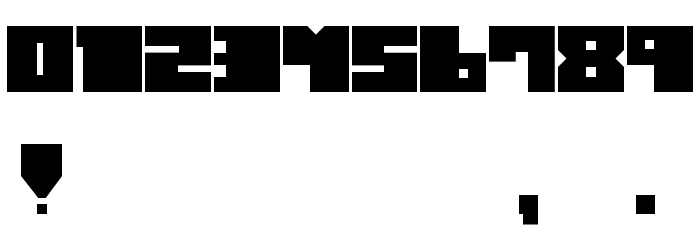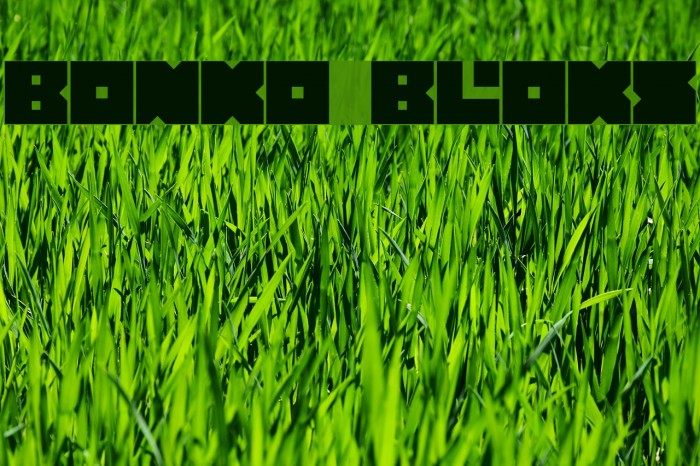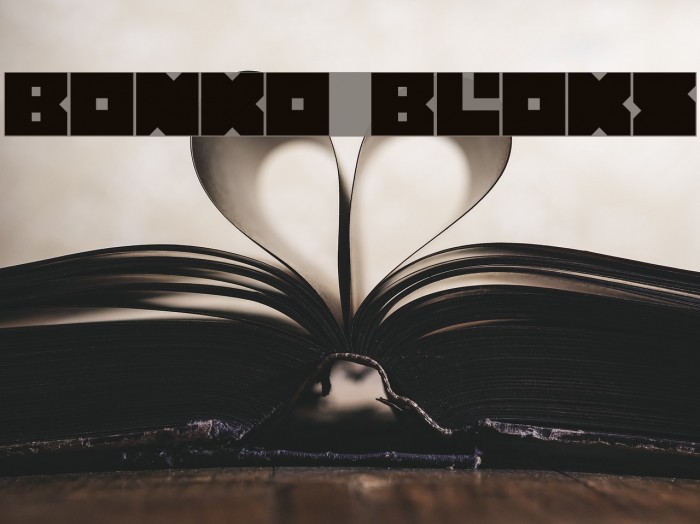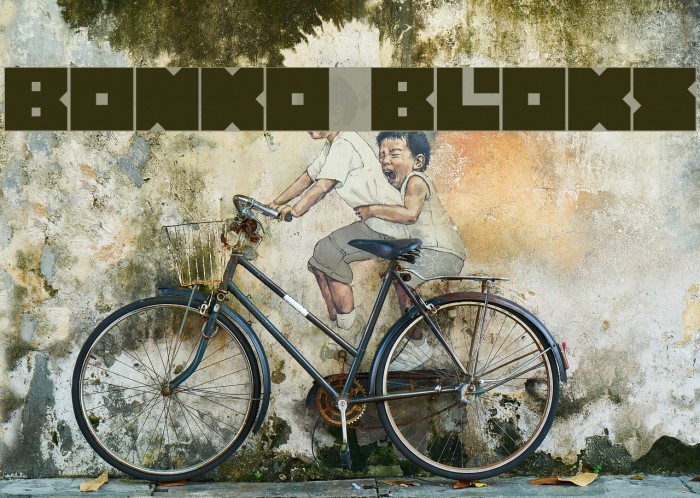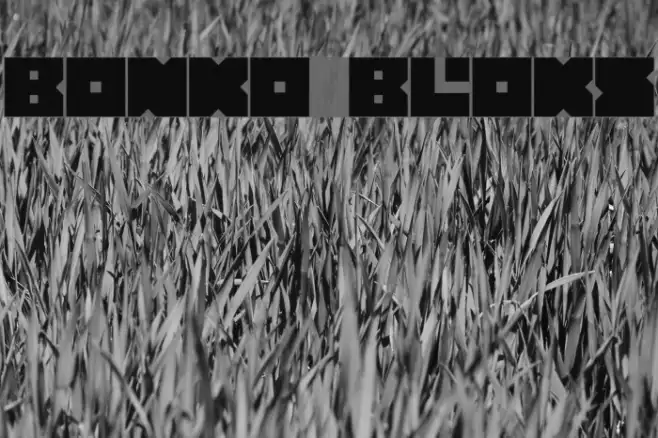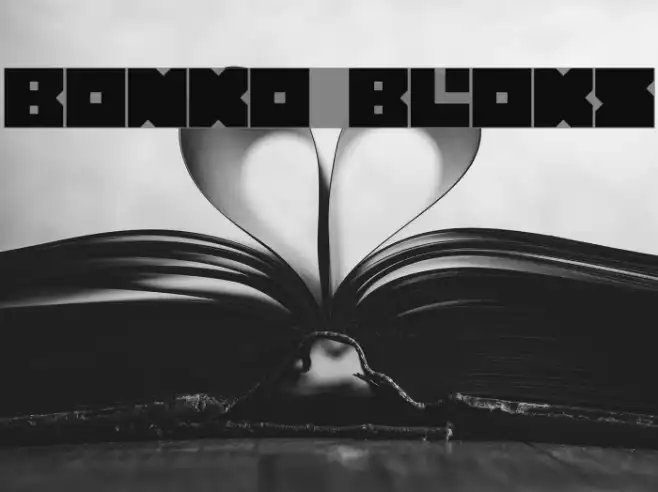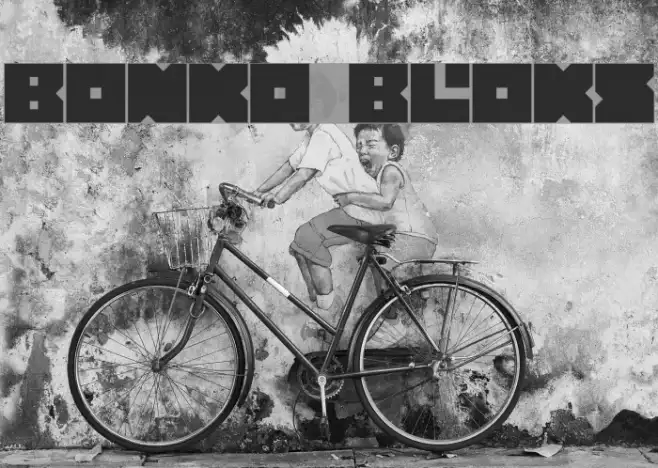
Bonko Bloks Font
This font features a bold, blocky design with a geometric aesthetic. Each character is constructed with thick, uniform strokes, creating a strong visual impact. The letters have a consistent height and width, giving the font a monospaced appearance, although it is not strictly monospaced. The style is reminiscent of digital or pixelated fonts, with a modern, futuristic feel. The uppercase and lowercase letters are identical, emphasizing the font's uniformity. The numbers and special characters maintain the same bold and geometric style, ensuring consistency across all glyphs. This font is highly decorative, making it suitable for attention-grabbing headlines or logos.
A bold, geometric font with a modern, digital aesthetic.
- Proposed Projects: Ideal for digital art projects, video game graphics, tech-themed posters, and modern branding.